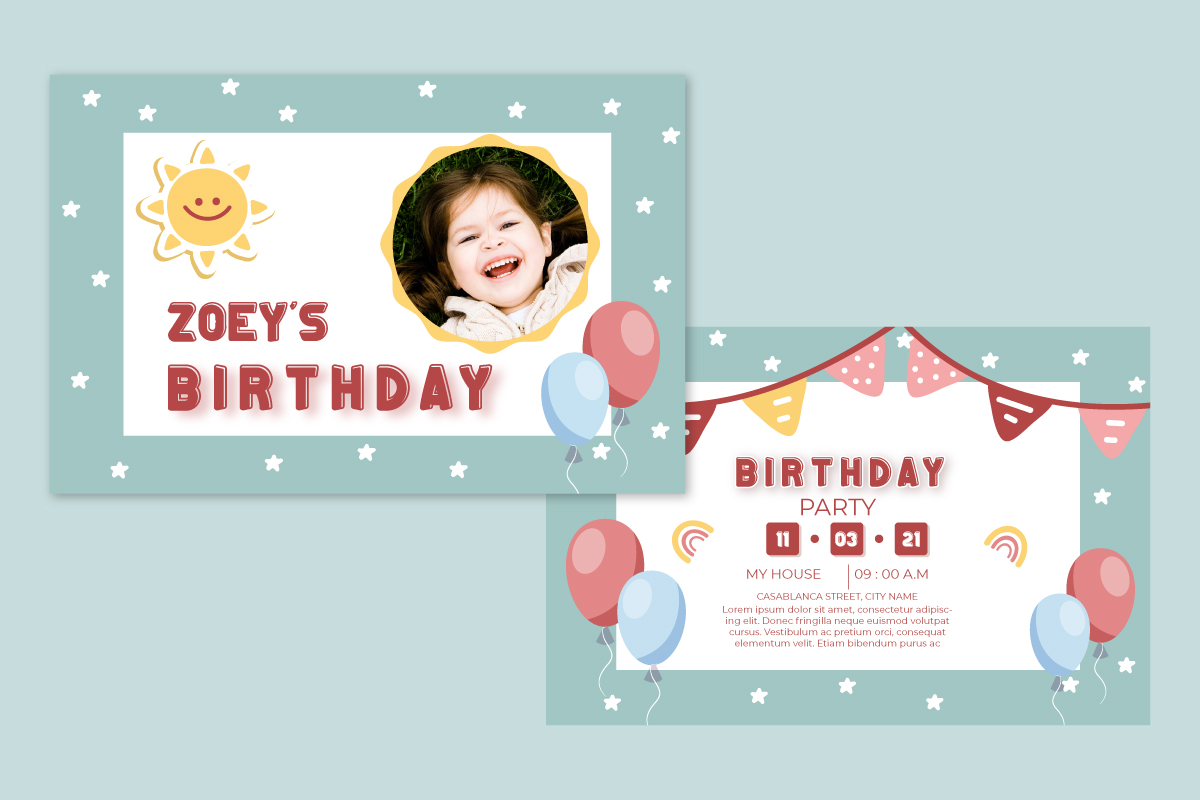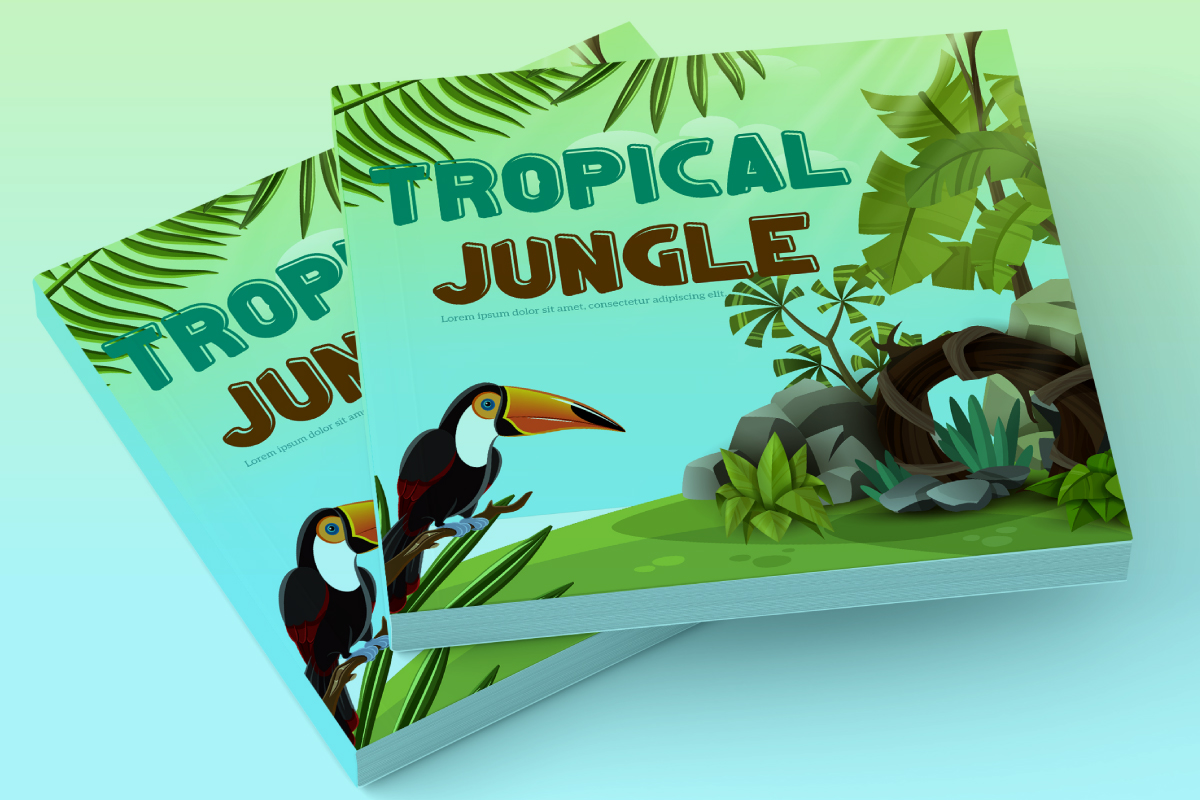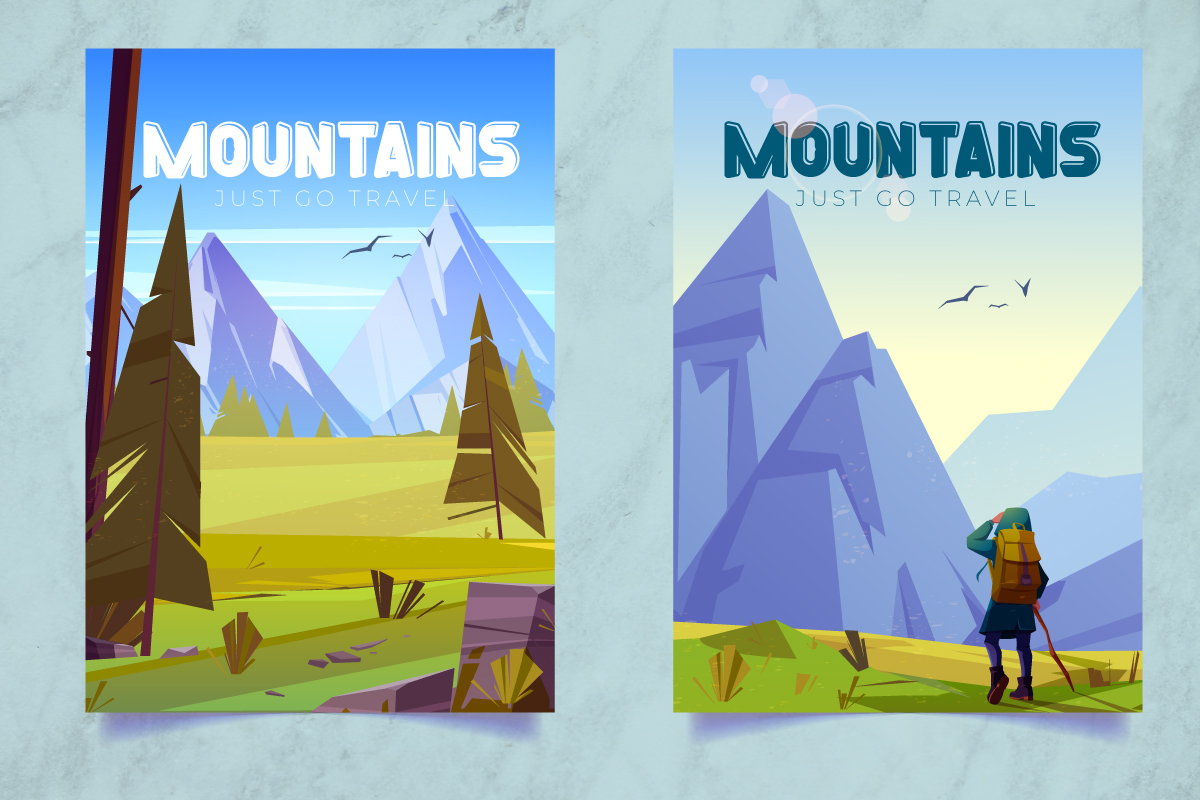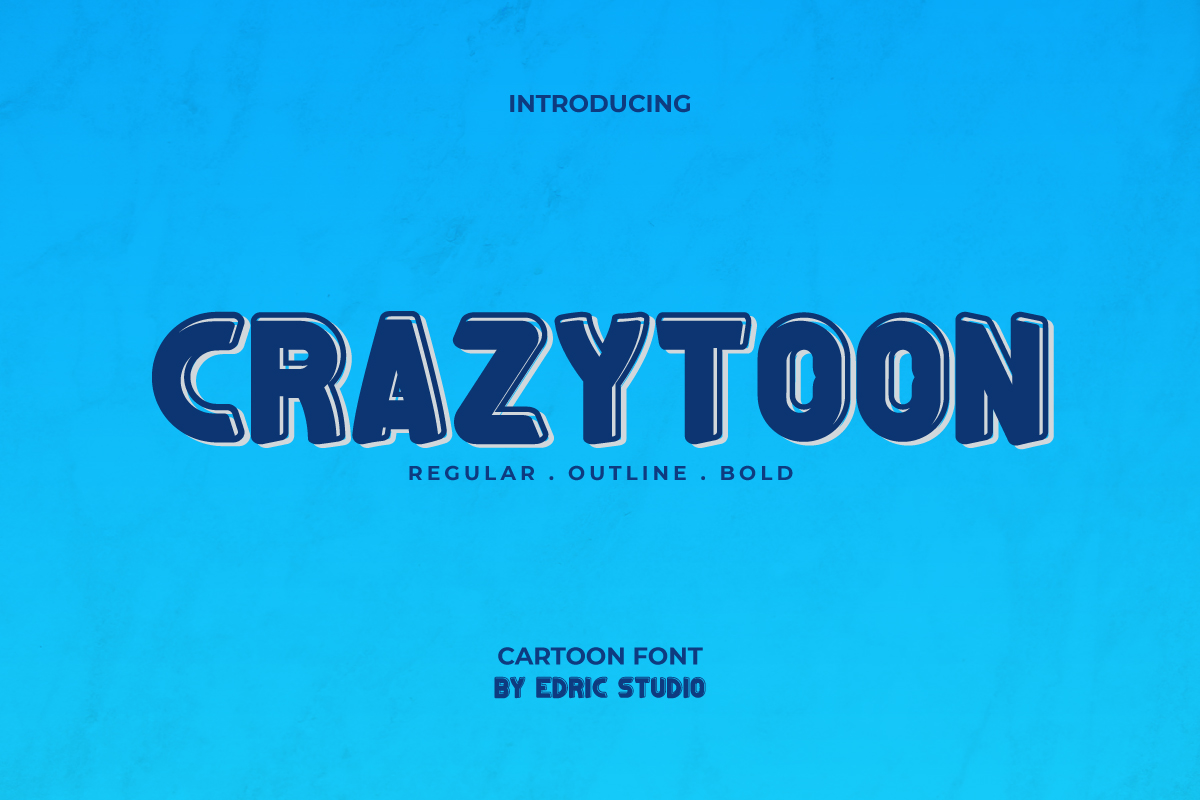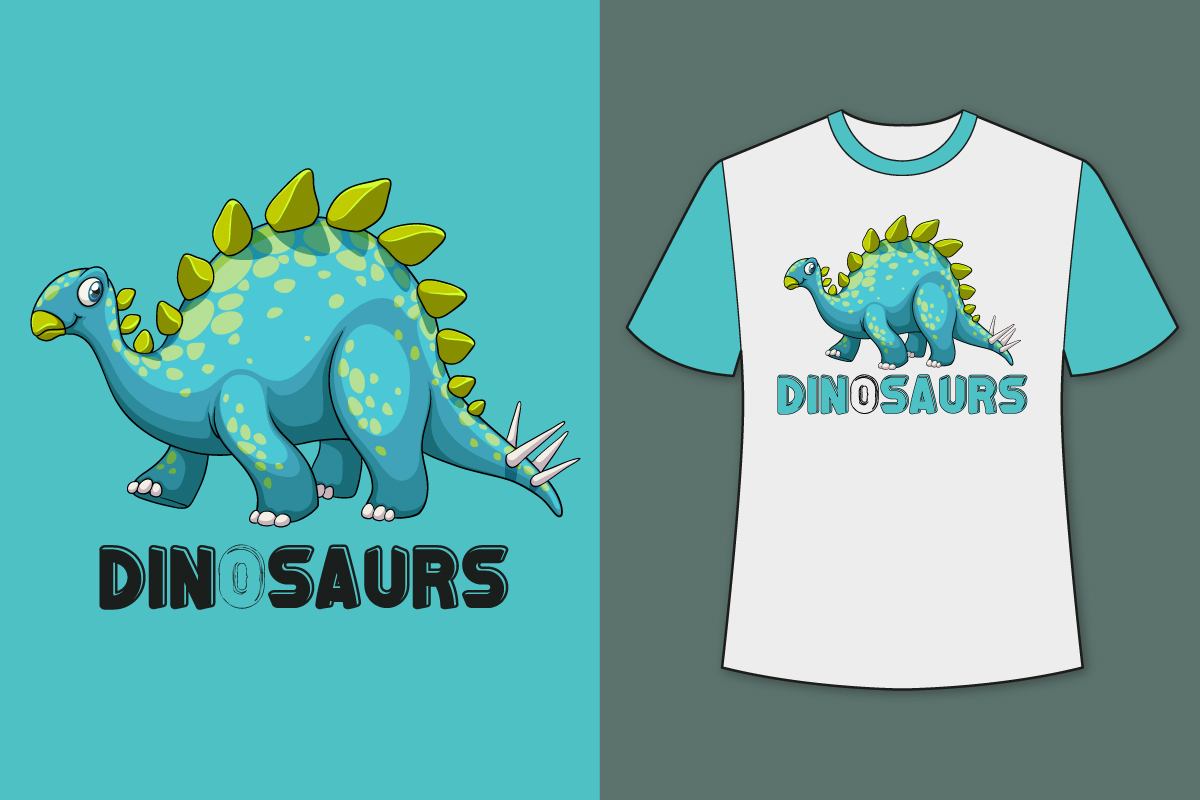
Crazytoon Display Font
It’s a funny cartoon display font. This cartoon font has a clean look with three different styles: regular, outline and bold. This font will be perfect for logo branding, invitation, lettering, products packaging, signage, stationery, title etc. There are many industries that is suitable for this font: birthday party, fashion, food and drink, game, kids, school, toys etc